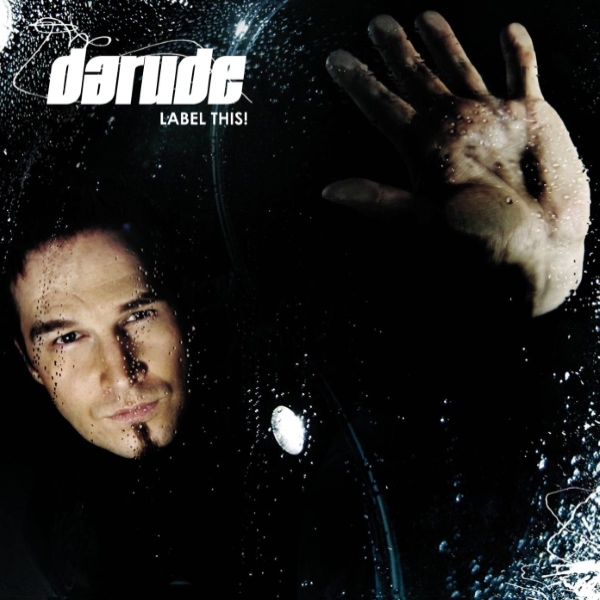
Label This Font
ElectronicLabel This! is Darude's third studio album, released in 2007. It features a mix of trance and progressive house tracks, showcasing his versatility as a producer.
The album title is likely set in Century Gothic Bold, a bold sans-serif typeface from Monotype Imaging released in 1991. "Darude" is most probably styled in Cavalier Black from TreacyFaces.